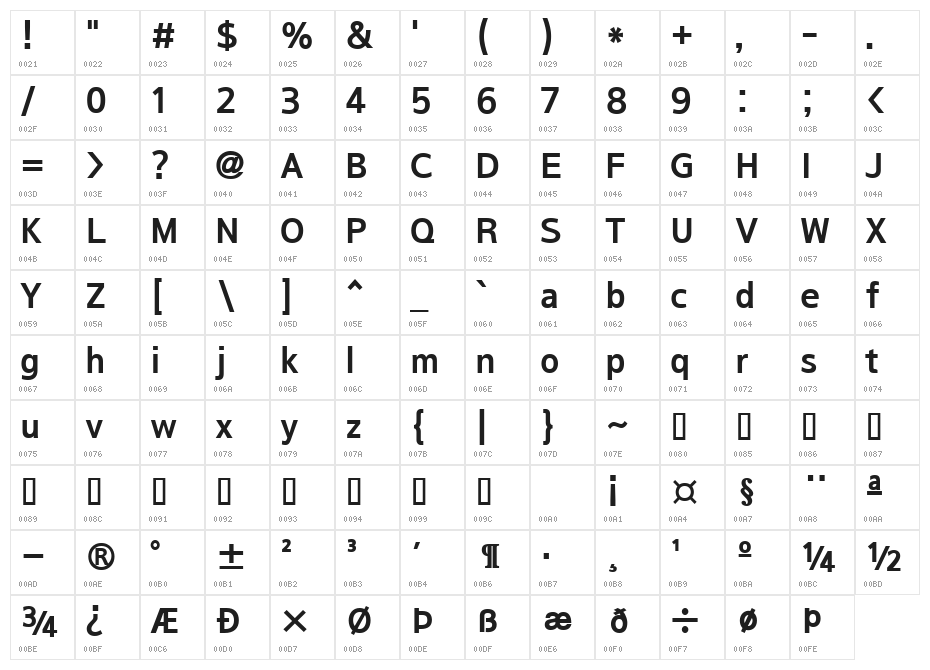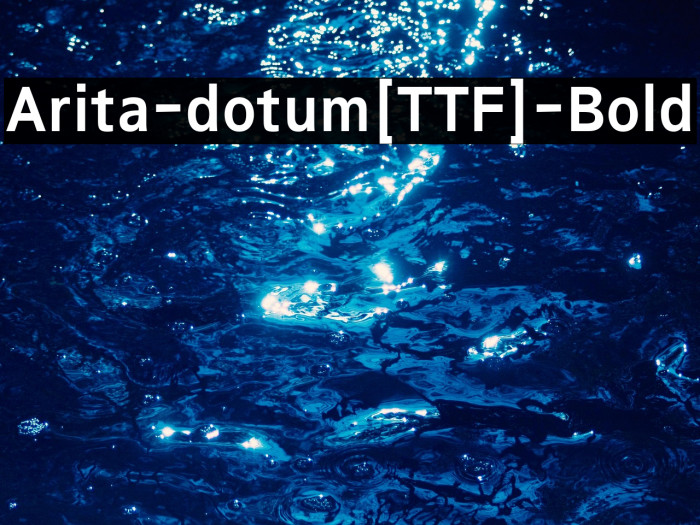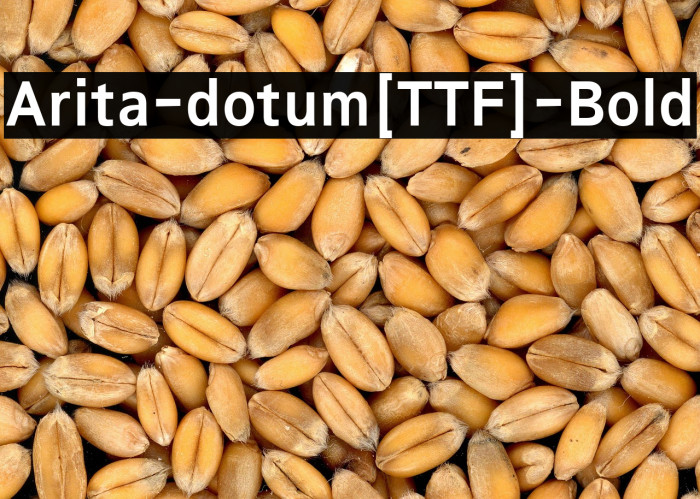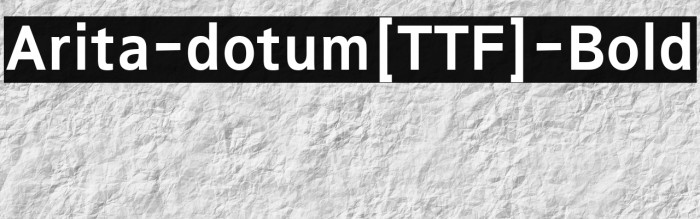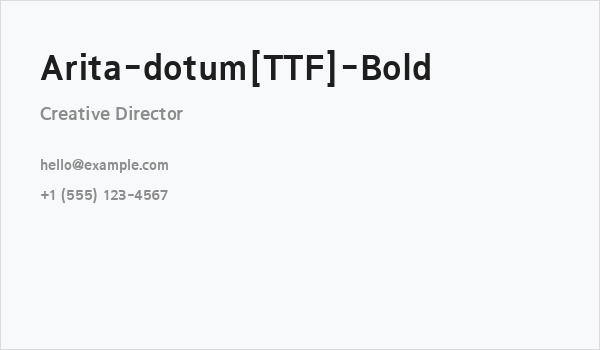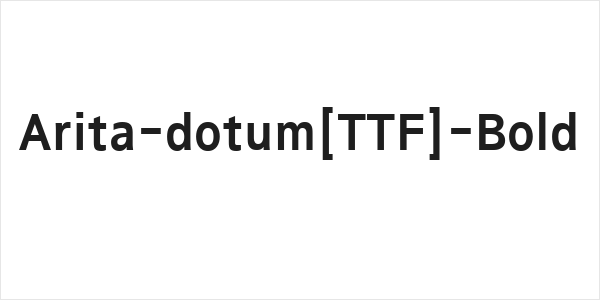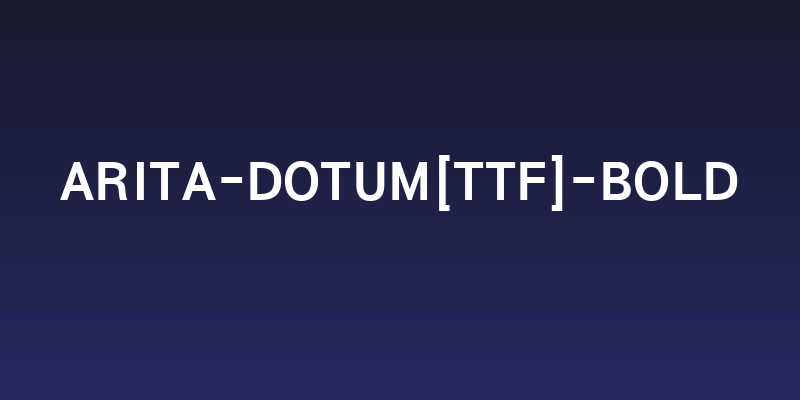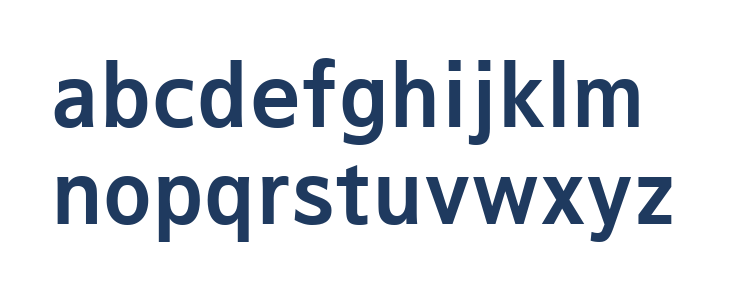
Arita-dotum[TTF]-Bold Font
Arita-dotum[TTF]-Bold Description
This font features a clean and modern sans-serif design with uniform stroke widths, providing a bold and assertive appearance. Its characters are well-defined with a geometric structure, offering excellent readability. The font maintains a consistent weight throughout, making it suitable for various applications where clarity and impact are essential. The spacing between characters is balanced, ensuring legibility even at smaller sizes. Its straightforward and professional look makes it versatile for both digital and print media.
| Use Case | Headlines, Logos, Digital interfaces |
| Proposed Projects | Ideal for branding, advertising, headlines, and digital interfaces where clarity and impact are crucial. |